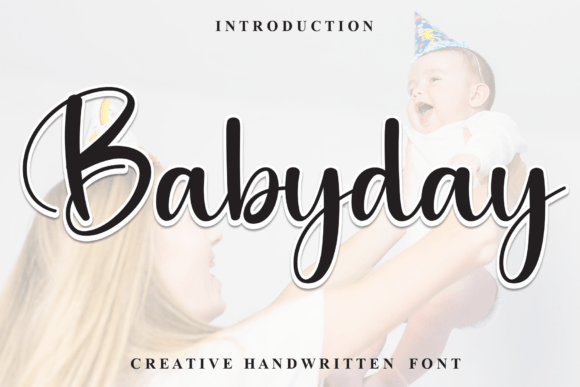
The Perfect Brush Stroke: Unleashing Your Creativity with Babyday Font
As you sit at your desk, staring at a blank canvas, the ideas start flowing, and your imagination runs wild. You envision a beautiful typography, a delicate brush stroke that captures the essence of your creative vision. This is where the Babyday Font comes in – a special set of creative products designed to give you an extraordinary experience.
- Unique Characteristics: The font features a playful, cursive design with rounded edges and smooth connections, making it perfect for baby-related designs, invitations, and stationery.
Babyday Font Review
First off, I love the whimsical and playful vibe of the Babyday Font! ✨ The rounded edges and soft curves give it a truly endearing feel, perfect for any project that needs a touch of innocence and charm. ✨ The font is well-suited for children’s books, nursery decor, or even advertising campaigns targeting young families.
One of the standout features of Babyday Font is its excellent legibility, making it easy to read even at smaller font sizes. ✨ The font also comes in a range of weights, from light to bold, allowing for flexibility in design.
- ⚠️ The font may be too cute for some projects, potentially giving off a too-juvenile vibe.
- ⚠️ The font’s rounded edges can make it difficult to use for text-heavy projects, as the letters may become hard to distinguish from one another.
- ⚠️ Some users may find the font’s playfulness to be inconsistent with their brand’s tone or style.
Overall, I think the Babyday Font is a great choice for designers who want to add a touch of whimsy and playfulness to their projects. While it may not be the best fit for every project, it’s definitely worth considering for those looking for a unique and eye-catching font.
Tips for Getting the Most Out of Babyday Font
To get the most out of Babyday Font, use it for:
- Creative projects that require a playful, handwritten feel.
- Designing for children’s products or educational materials.
- Adding a touch of whimsy to your branding or marketing materials.
Babyday Font is commonly used for:
- Children’s book covers and illustrations.
- Party invitations and decorations.
- Branding for nurseries and children’s products.
Alternatives to Babyday Font